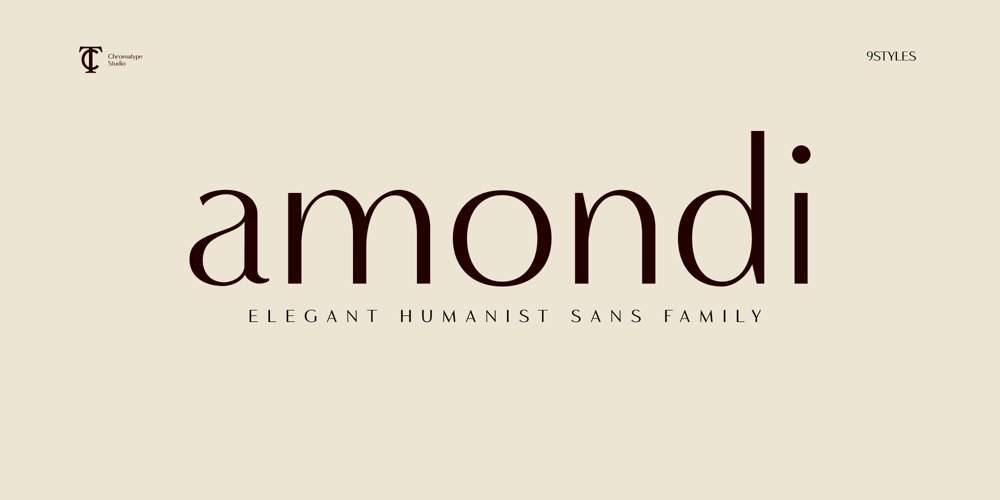
Amondi Font Family was designed by Slamet Ardiyanto and published by Chromatype Studio. Amondi contains 6 styles and family package options. Amondi are humanist and elegant sans family that was created to make clean and elegant typography with 9 styles and 3 weights. This type of family can be used for text paragraphs, especially in light and regular weight, and the bold can be used in display and Headline. Amondi suitable for branding, website, desktop and other designs